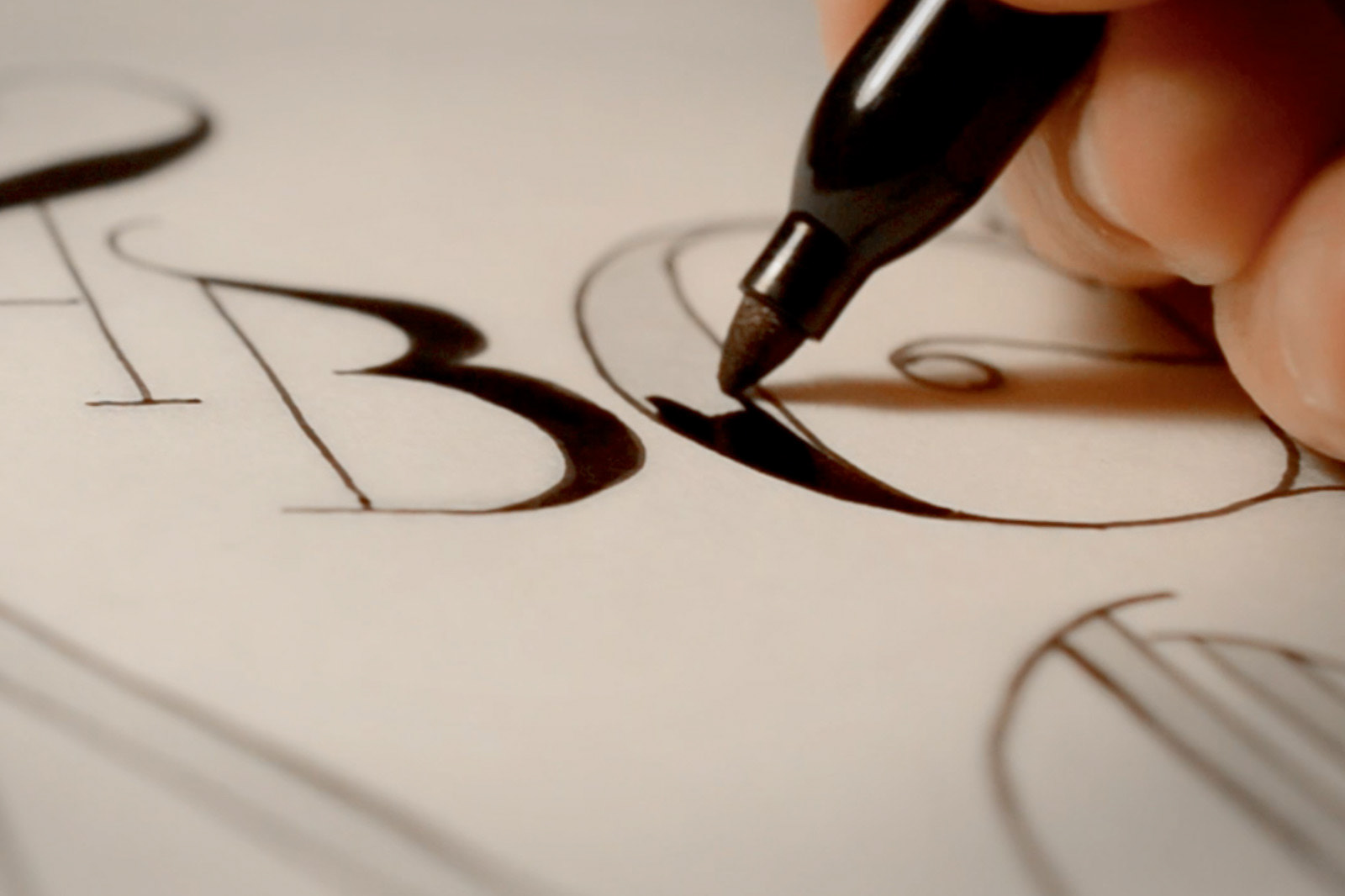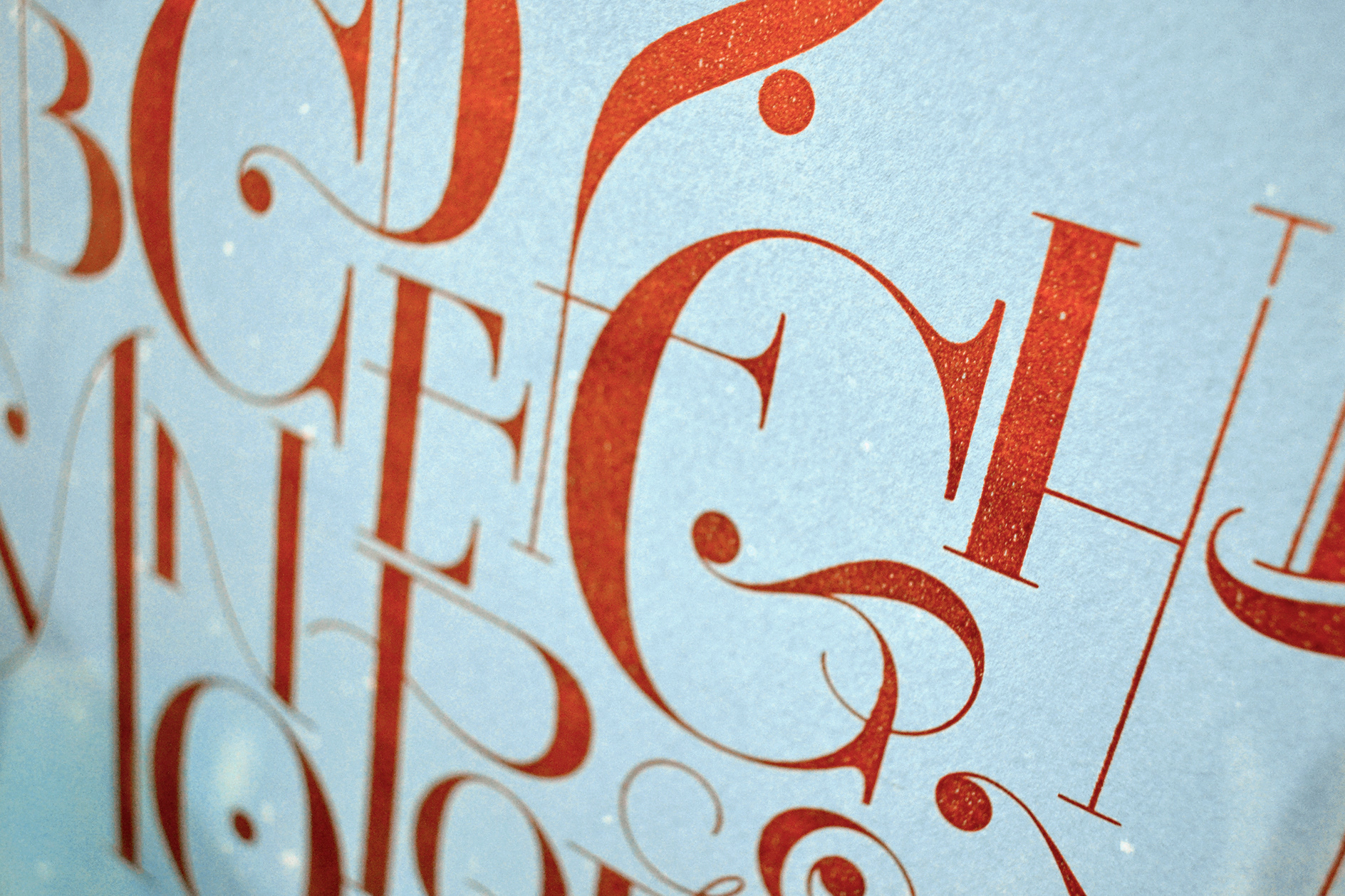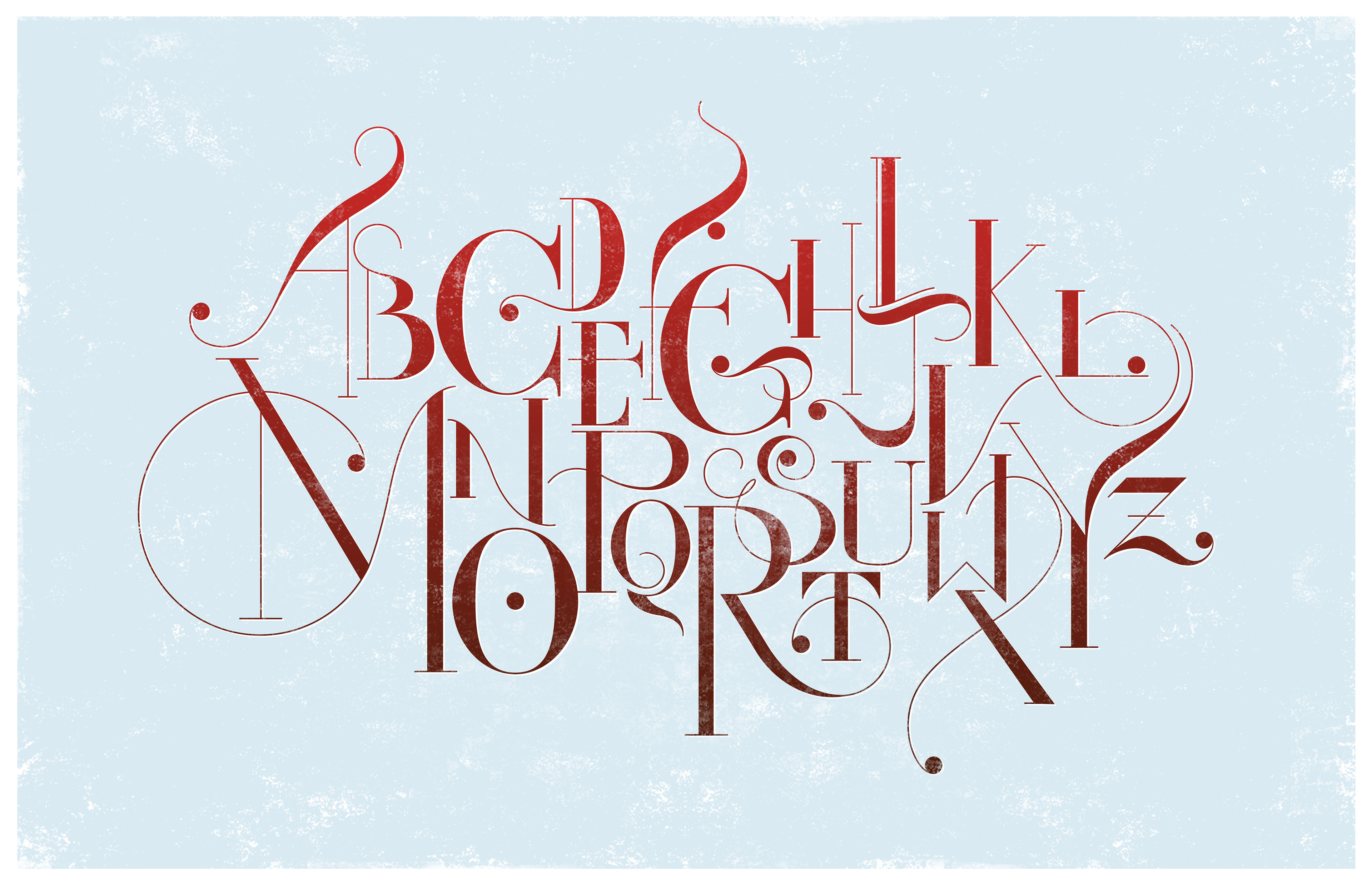
Maya's Alphabet Screen Print Poster
Typographic screen print dedicated to my daughter. The intertwined lettering was designed to have her explore the alphabet as she gets older.